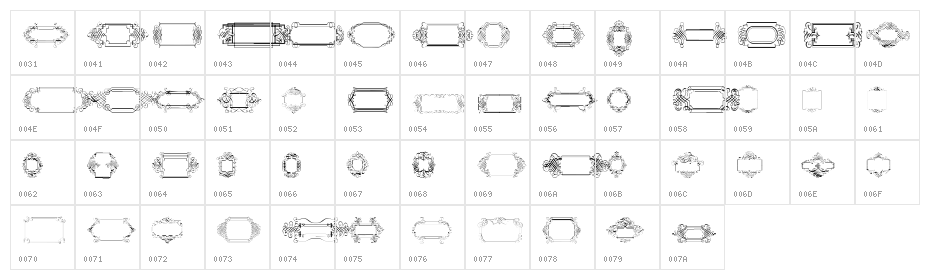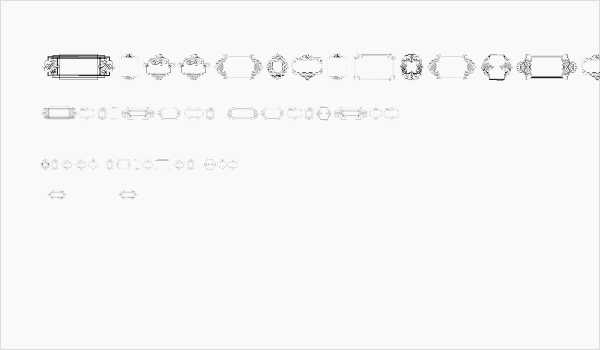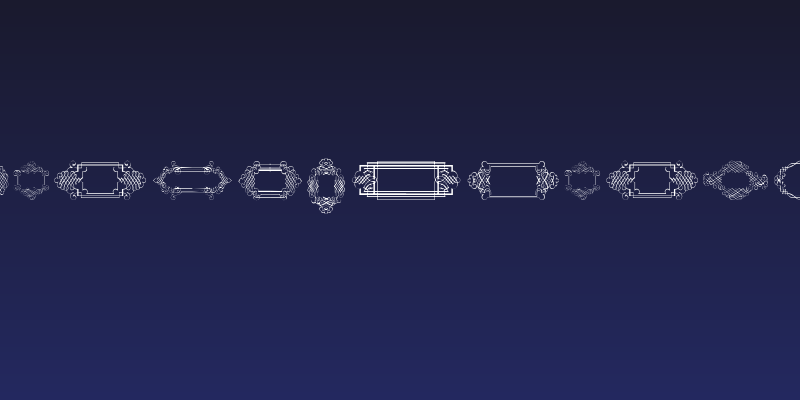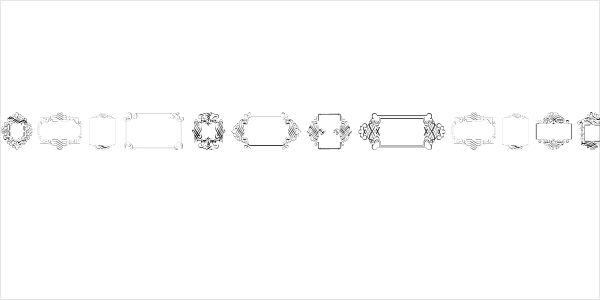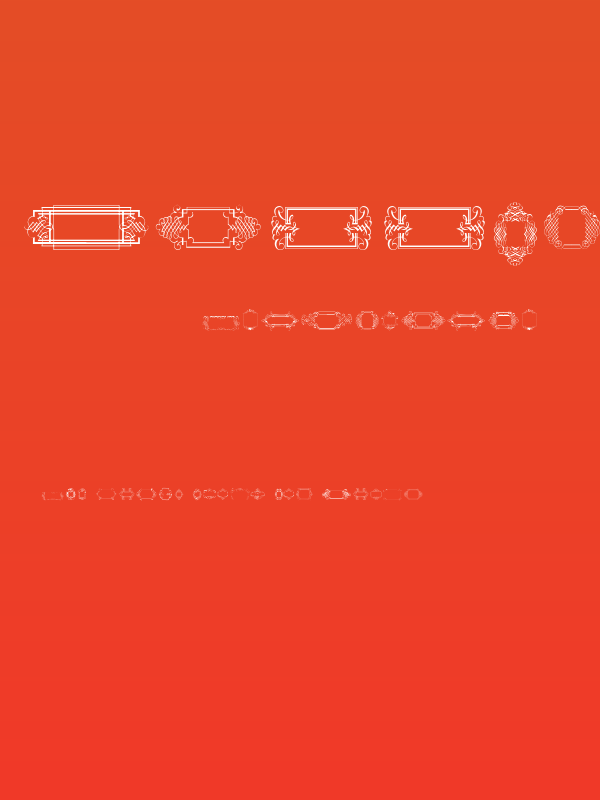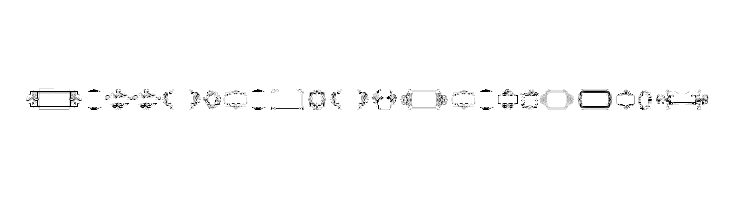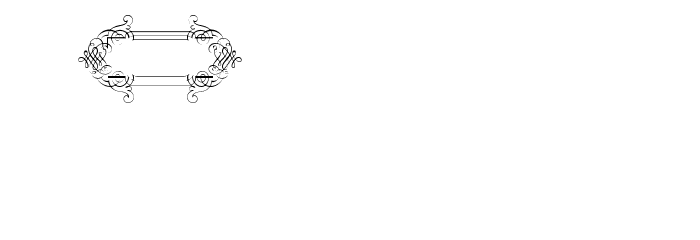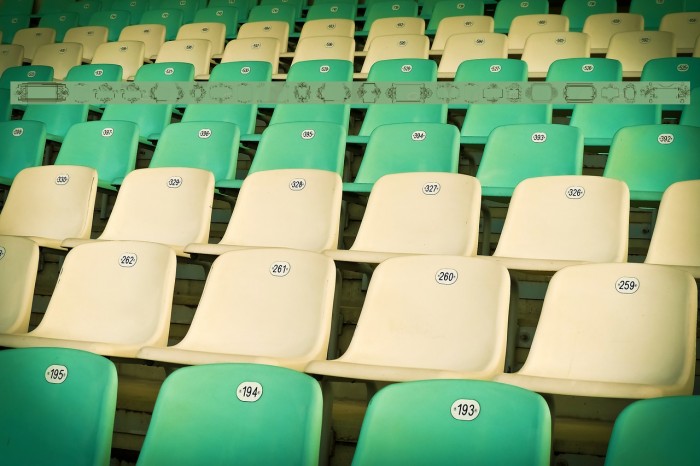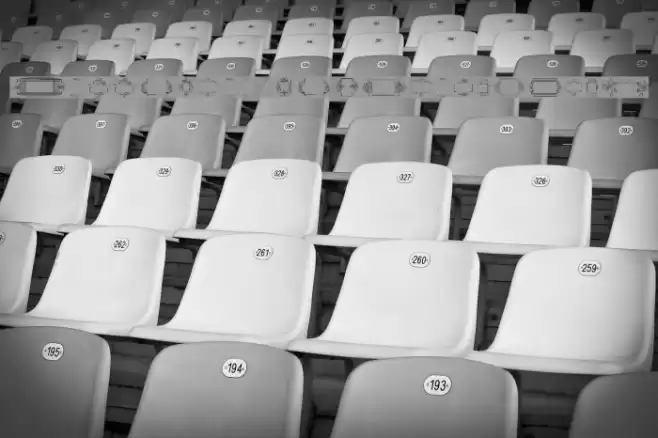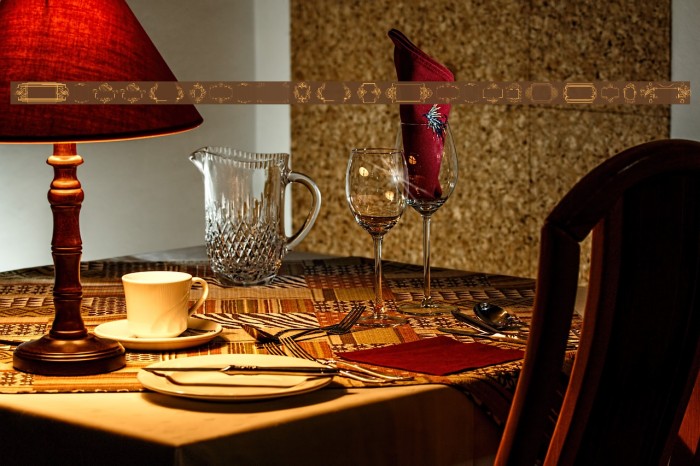
CalligraphicFramesSoft Font
✎ Dingbats
| 全体的なスタイル | Decorative, Vintage, Elegant |
| 用途 | Frames, Borders, Decorative accents |
| おすすめプロジェクト | Invitations, certificates, greeting cards, vintage labels, decorative borders for print or digital design. |